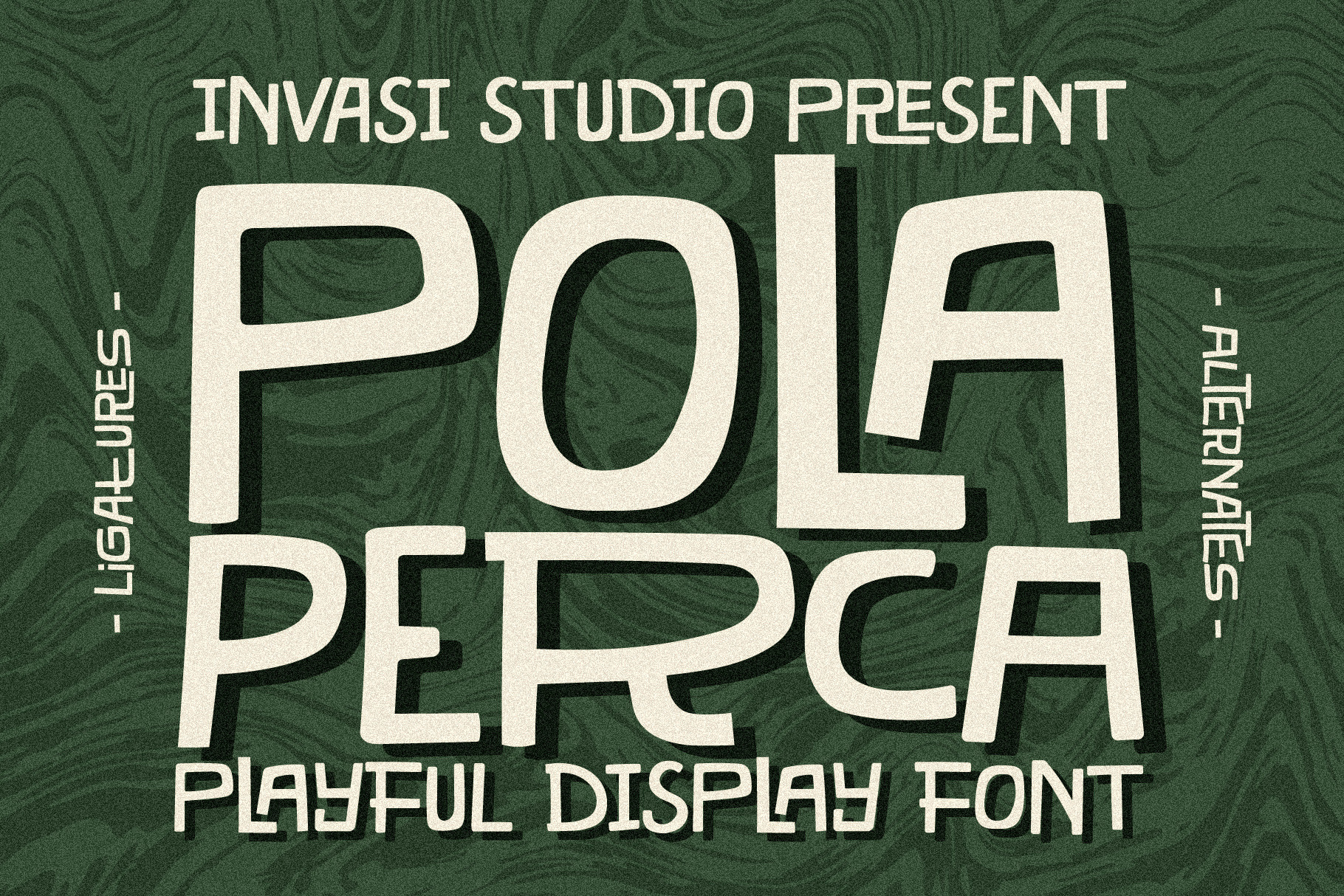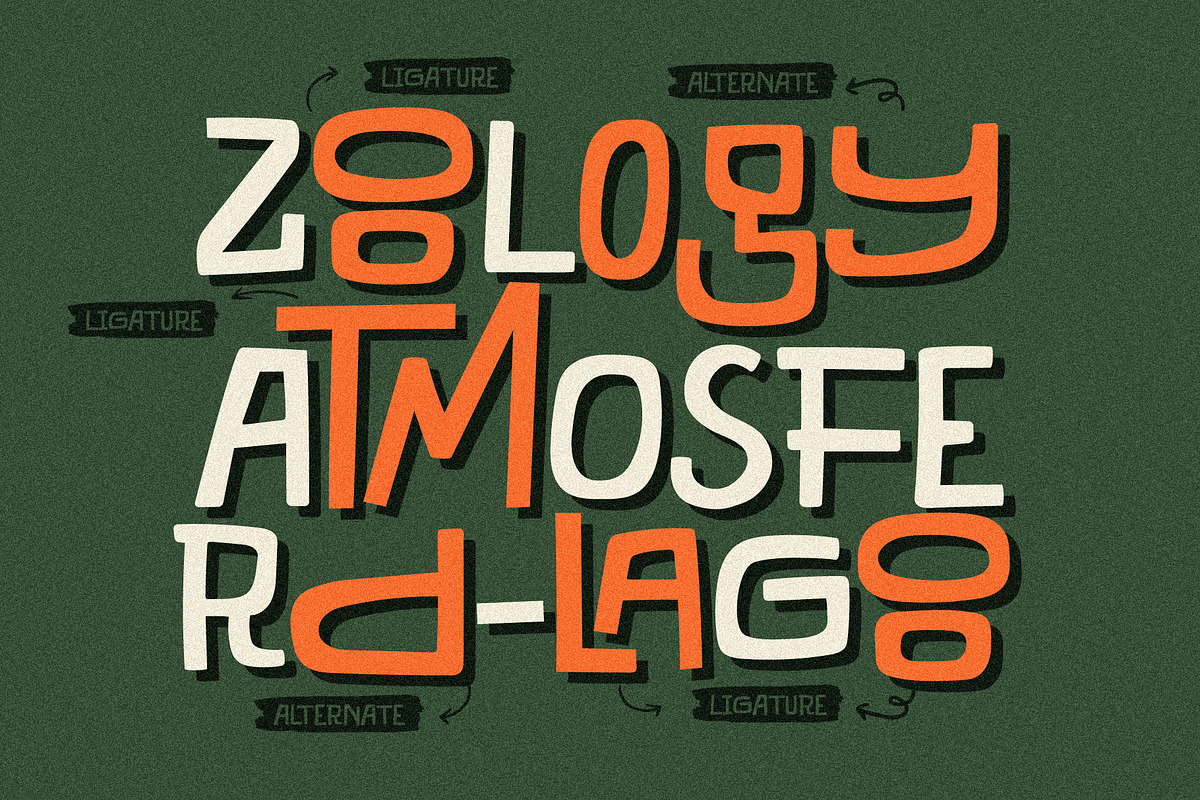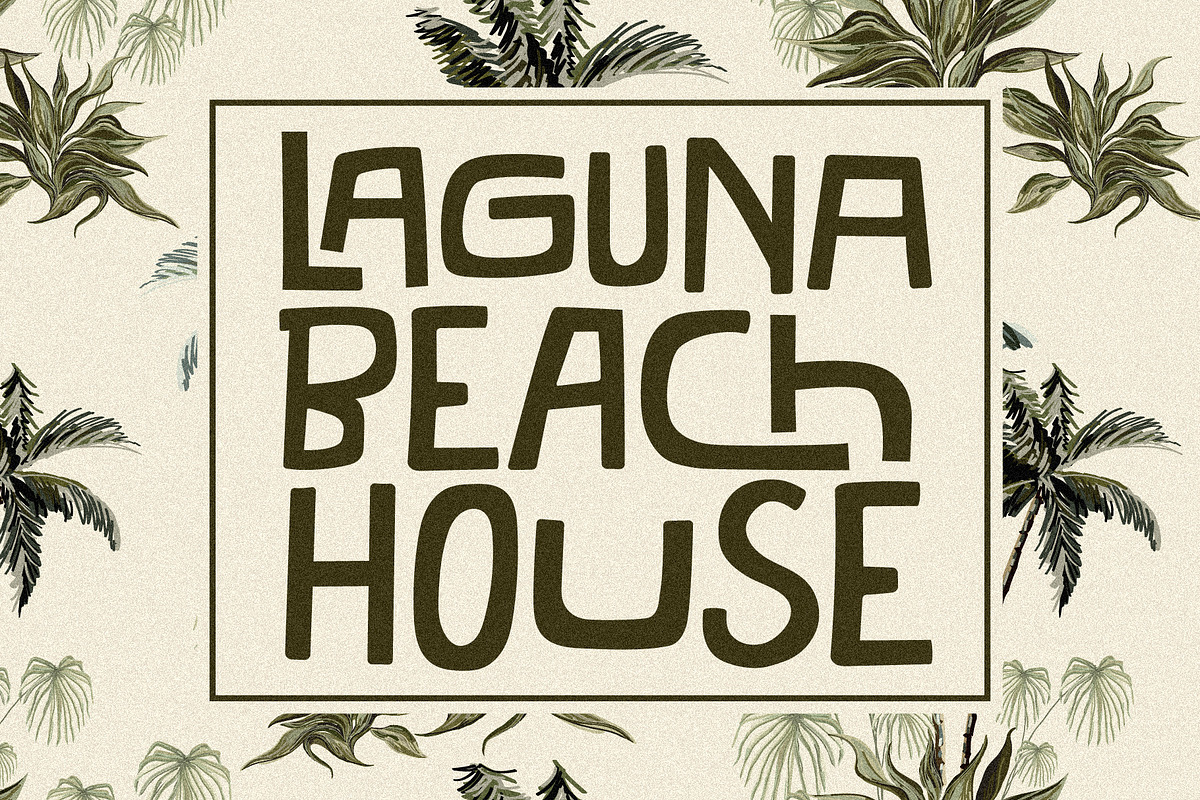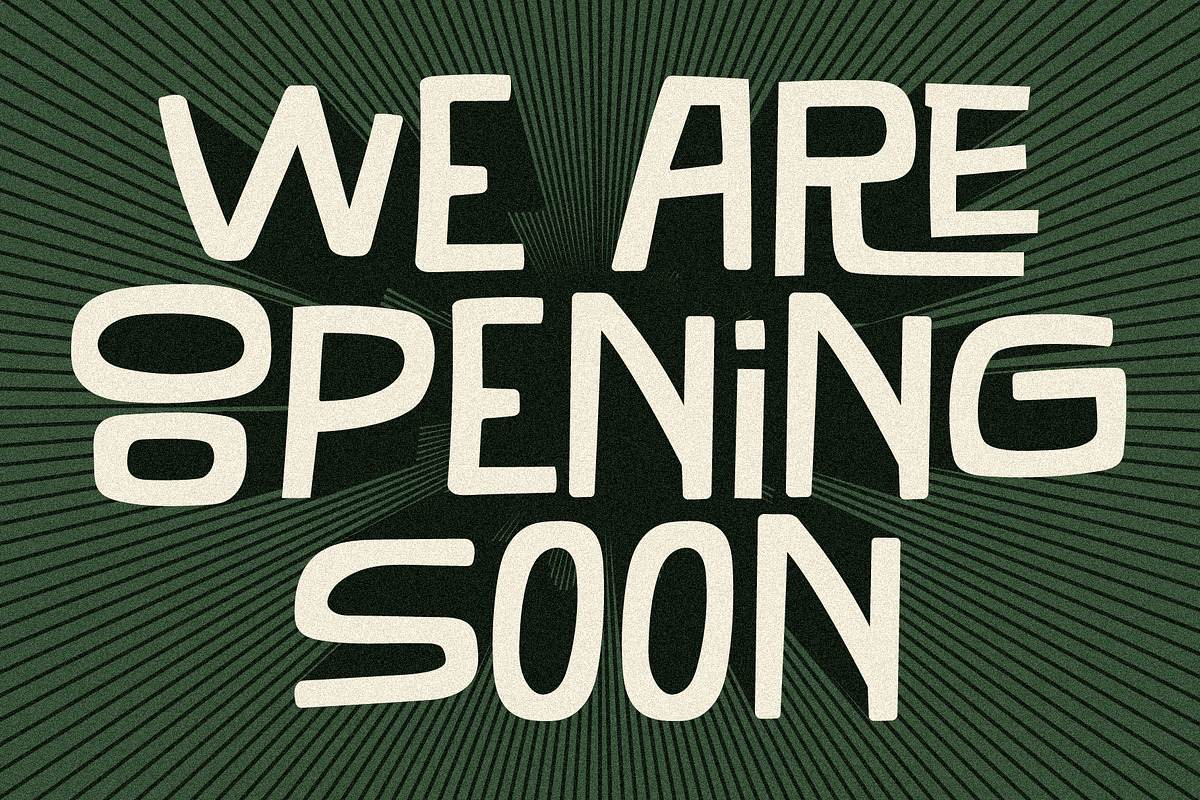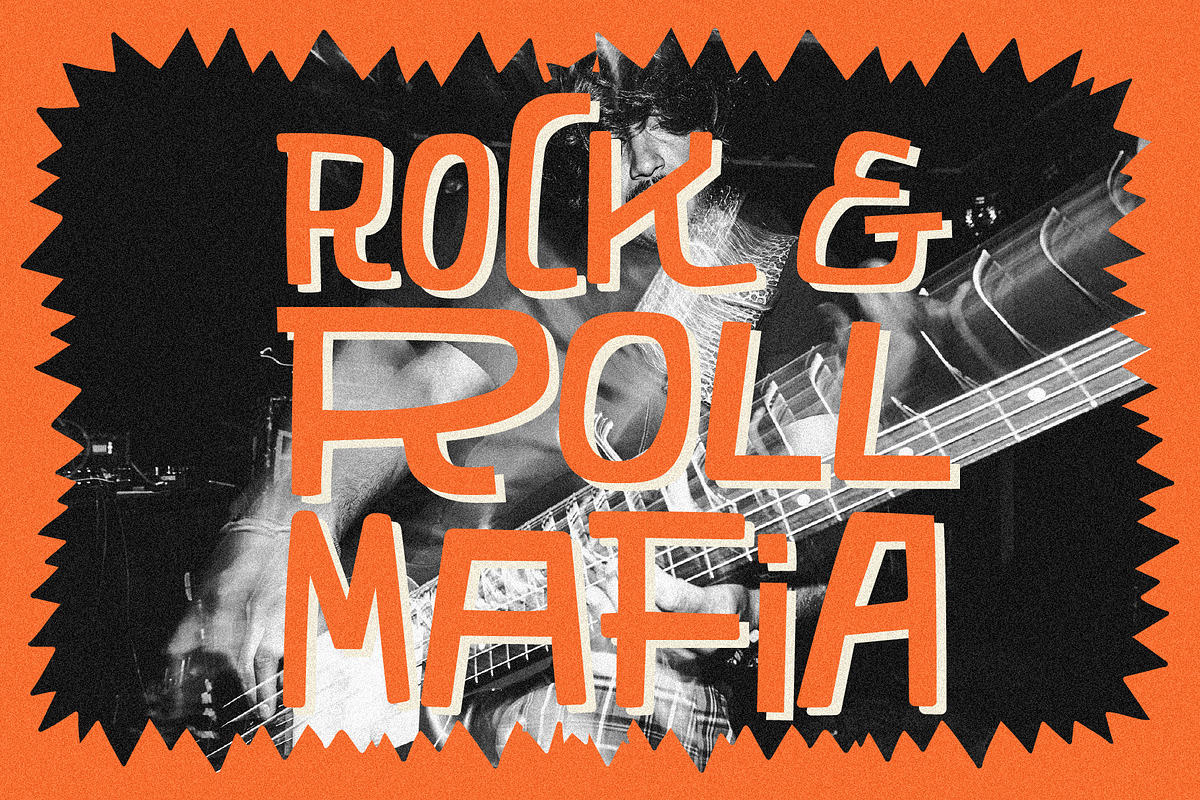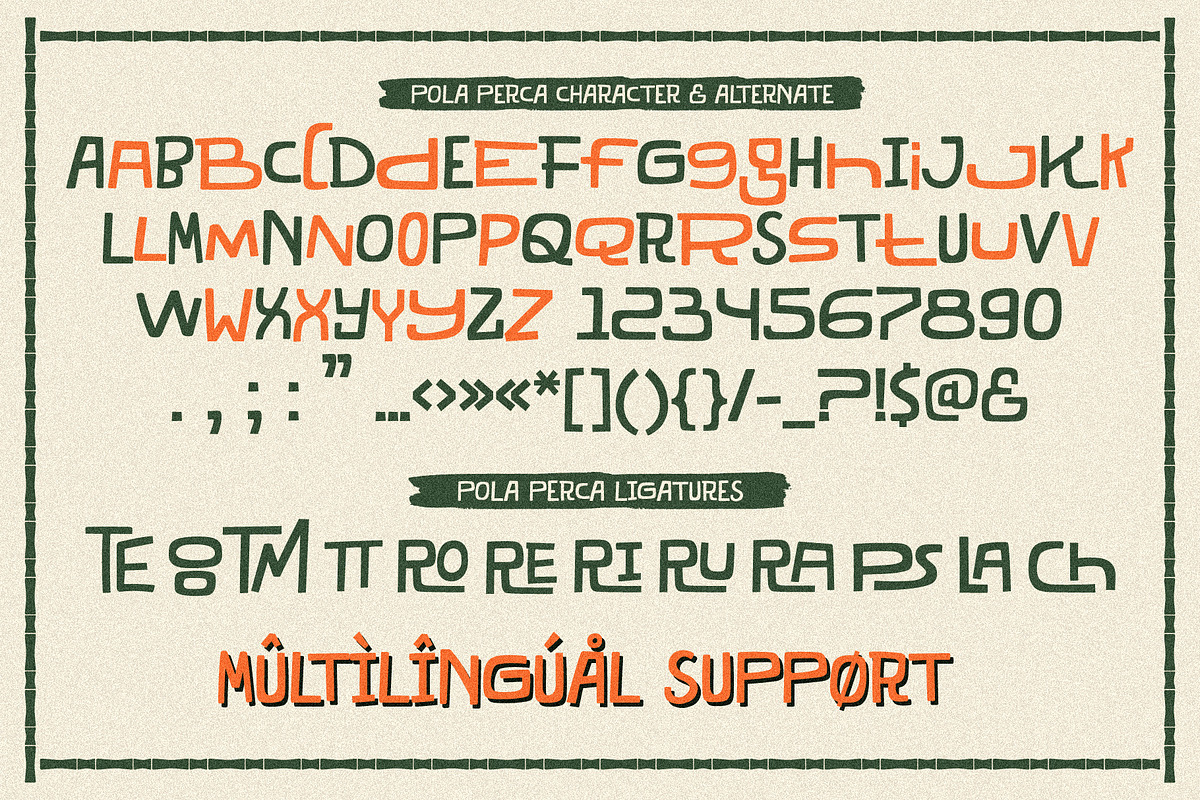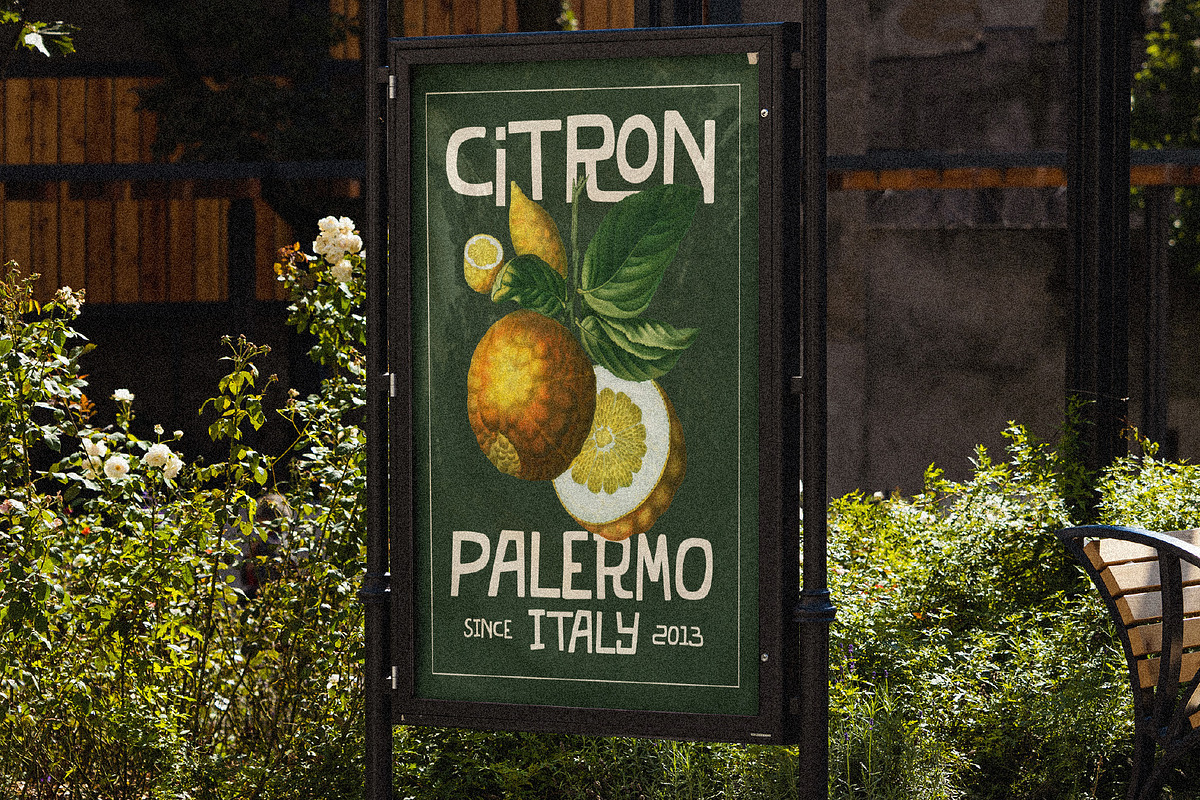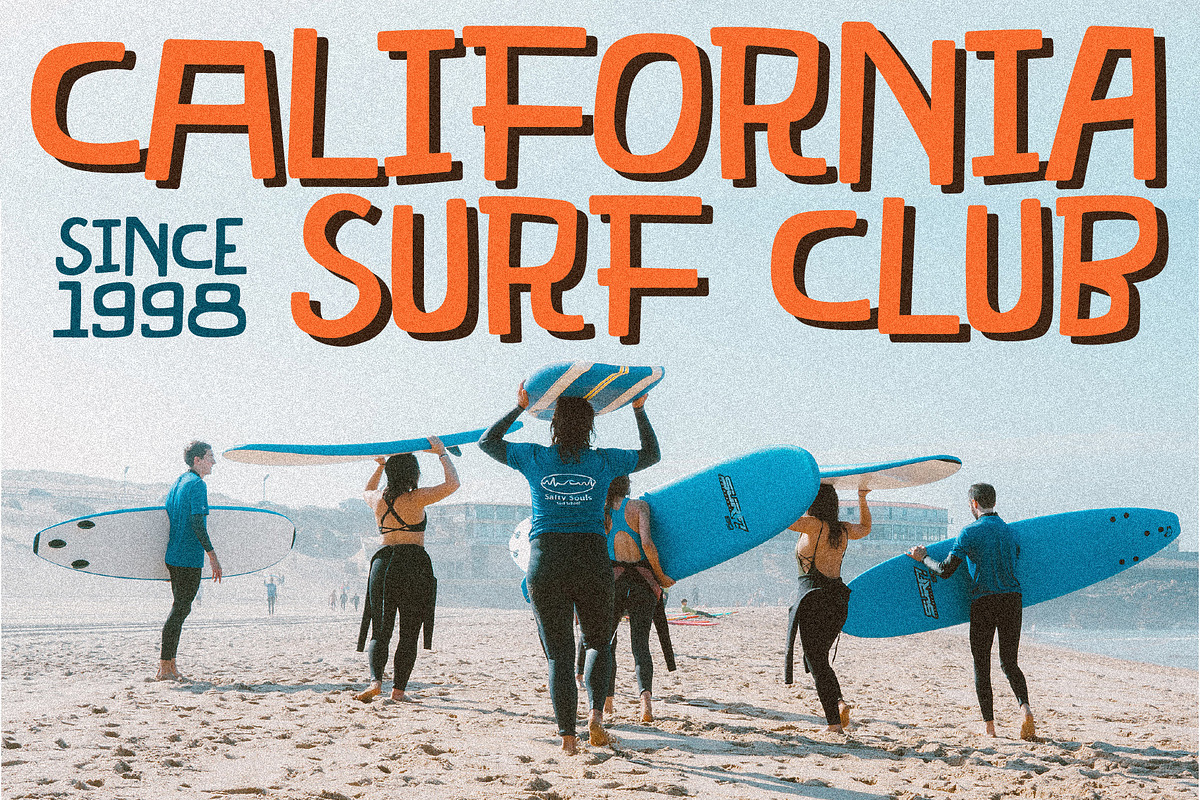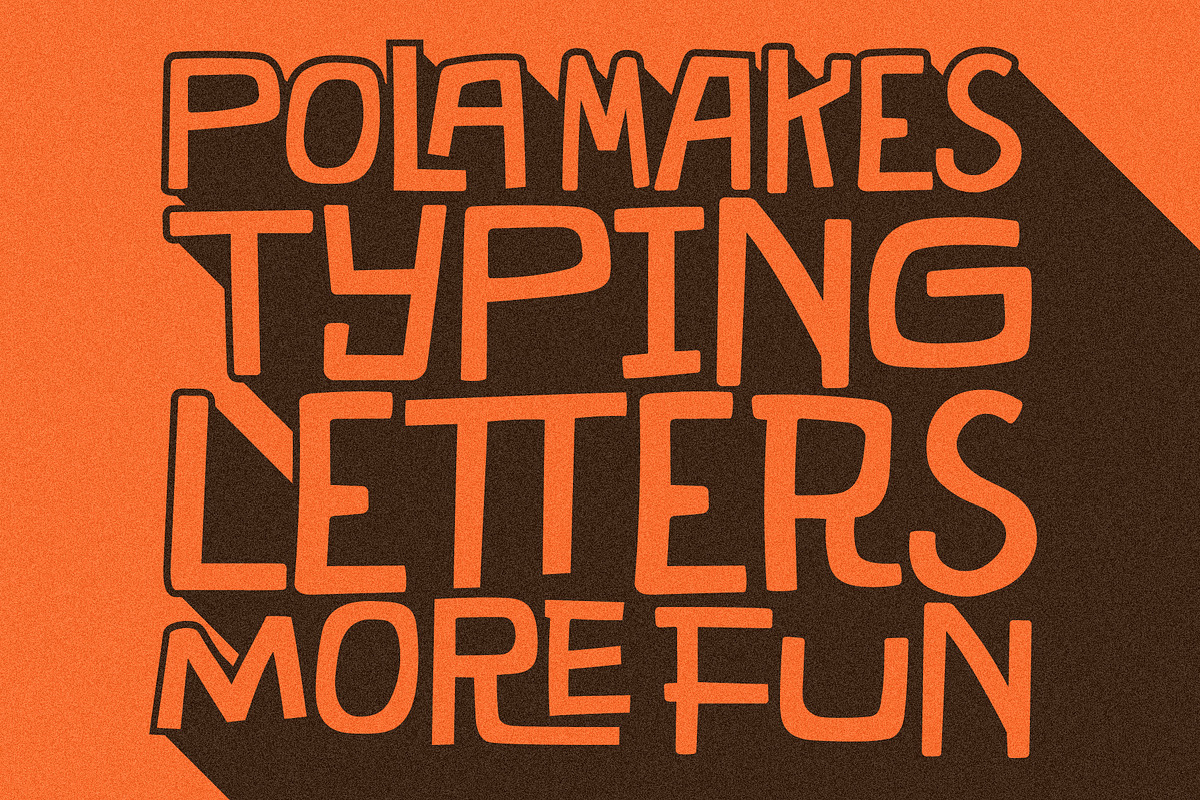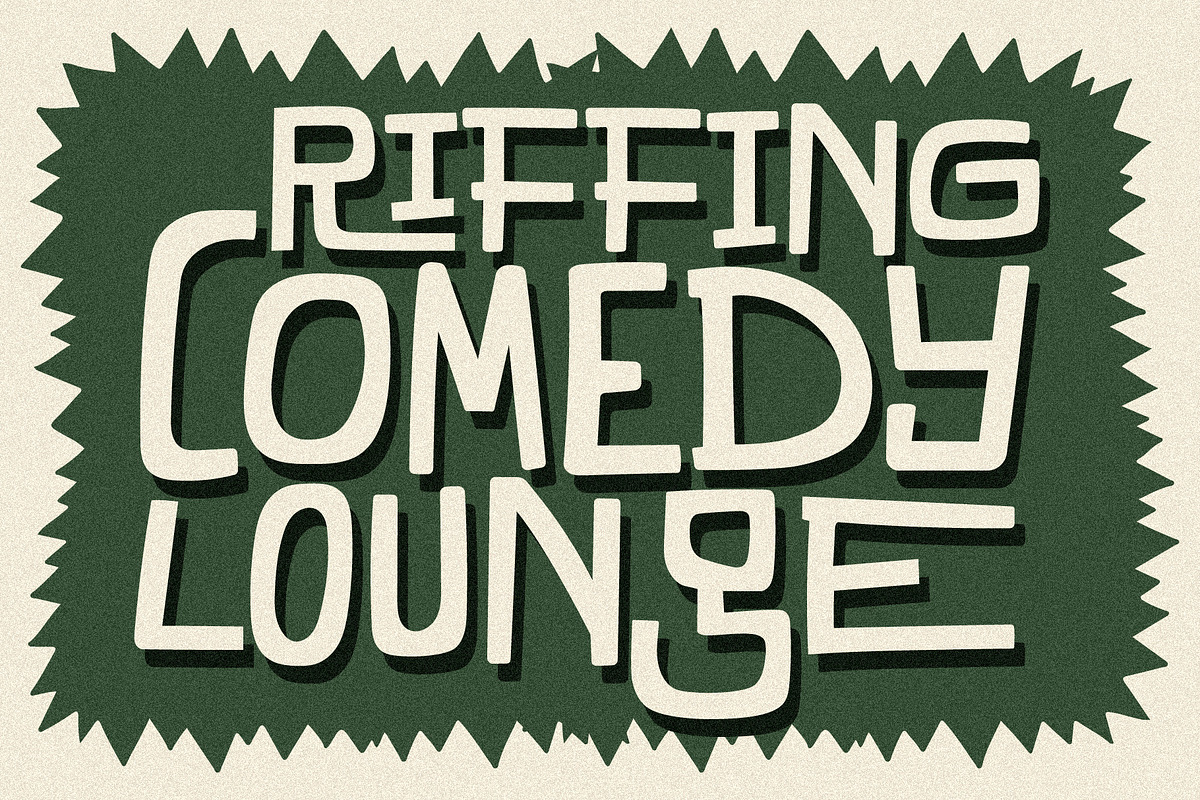
Pola Perca - Playful Tiki Font
Get ready to embark on a playful adventure with Pola Perca, the tiki-inspired display font that's full of fun! Drawing inspiration from the ancient art form of tiki style, which celebrates the rich Polynesian culture, we've put our own twist on it, adding a playful and random baseline to the typeface. The result? A font that exudes a delightful and lighthearted look, guaranteed to make typing letters an absolute blast! But don't let the fun and games fool you - Pola Perca is also highly legible and easy to read, making it the perfect choice for headlines, titles, packaging, logos, and any design element that needs to convey its message with clarity and style.
- Alternates & Ligature
- Multilanguage Supports 60+ Latin-based languages